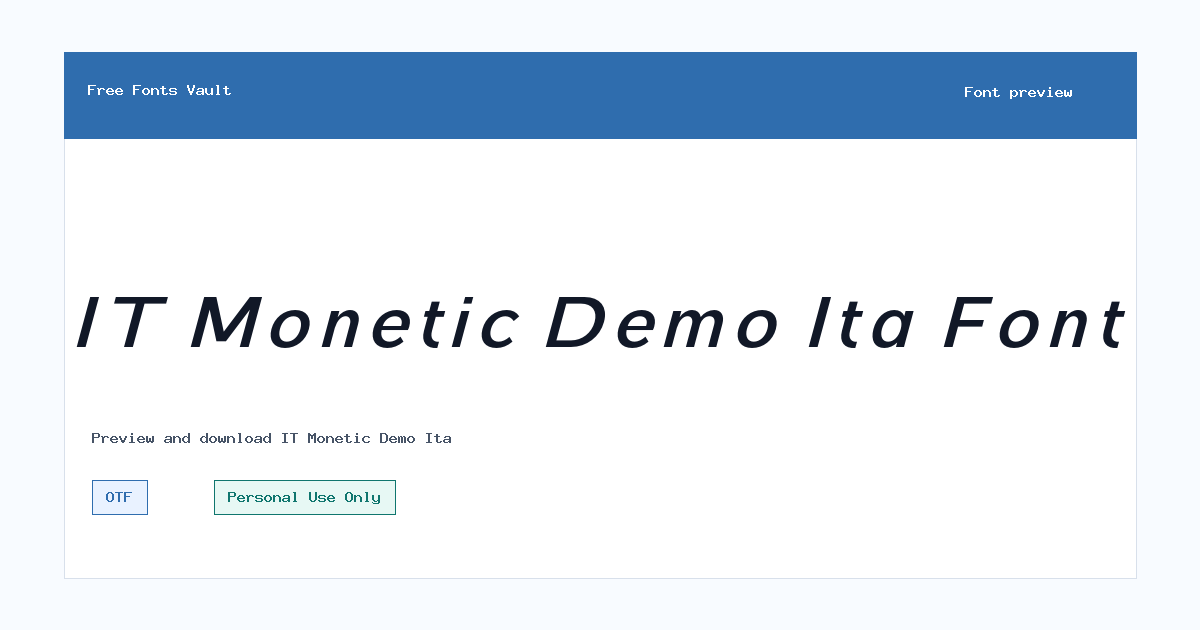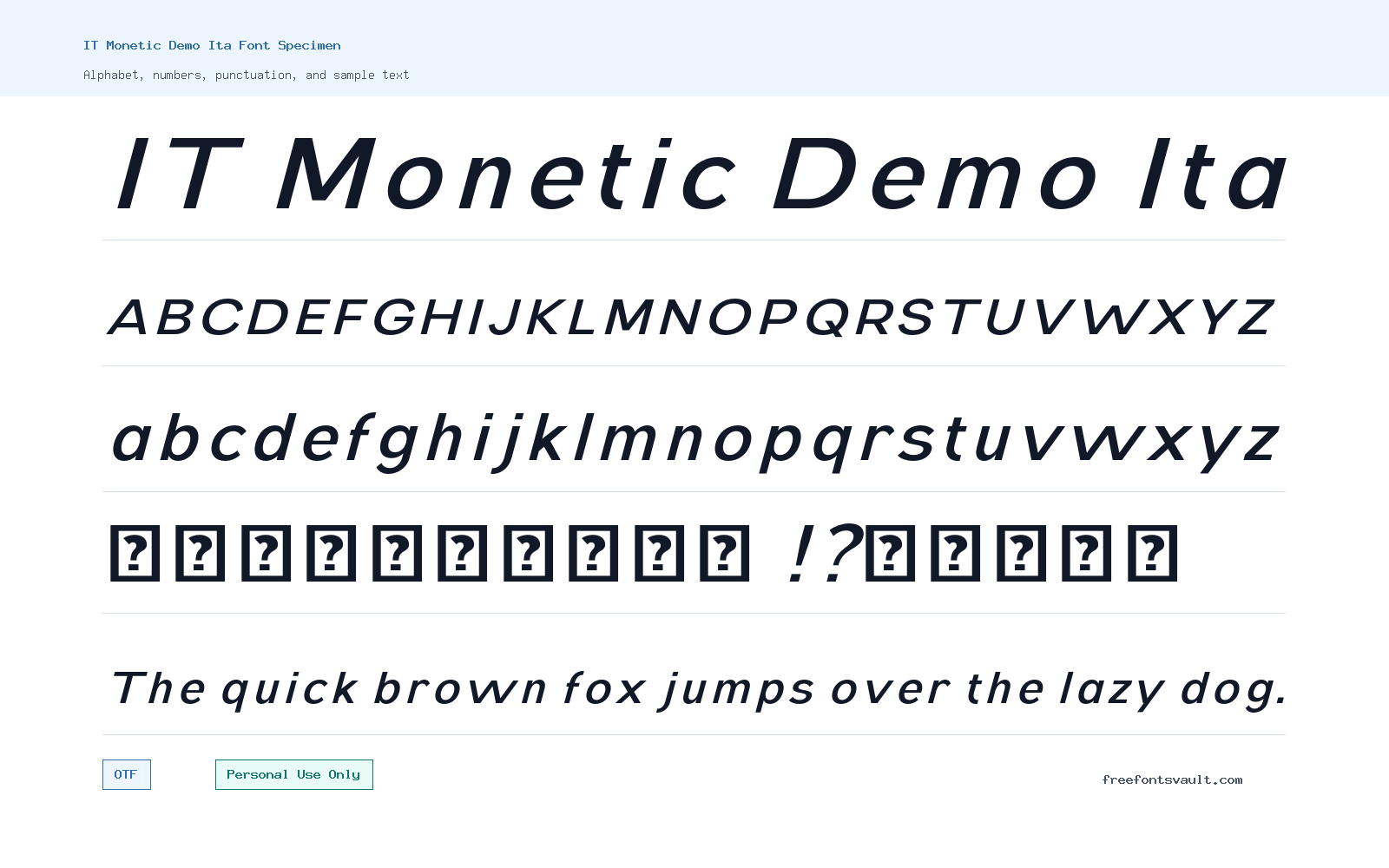
IT Monetic Demo Ita
- Designer Indotype
- Foundry Indotype Foundry
IT Monetic Demo Ita font.
IT Monetic Demo Ita is an italic sans serif demo font from the IT Monetic family. It is useful when you need a clean, slanted style for personal design drafts, title tests, poster mockups, and typography experiments.
About IT Monetic Demo Ita
IT Monetic Demo Ita has the practical feel of a modern sans serif with an italic angle that gives text more motion than a plain upright style. The available files cover a regular-weight italic and a bold italic, both in OTF format. That makes the font easier to test across different levels of emphasis: the lighter style can work for subheads, captions, and short notes, while the bold italic is better suited to stronger display text, name treatments, and attention-grabbing words.
The wider IT Monetic family is described by font distributors as a sans serif family built around clean geometric structure with some softer humanist touches. For this page, the safest way to judge the font is by using the preview tool with your own text. Try a brand name, a short quote, a poster headline, a button label, and a paragraph-length sample. Italic sans serifs can look sharp in short settings, but long passages may feel too slanted or too active, especially at smaller sizes.
For logo work, IT Monetic Demo Ita can be useful during early concepting when you want a clean italic direction without moving into script or handwritten lettering. Test it in all caps, title case, and lowercase, because italic letter shapes can change the rhythm of a wordmark. For posters and social graphics, keep the copy short and give the letters enough spacing. The bold italic style should be tested at large sizes where its weight and angle can be seen clearly.
Pairing IT Monetic Demo Ita is easiest when you let it act as the accent voice. Use a calm upright sans serif for body text, navigation, and longer explanations, then bring in IT Monetic Demo Ita for short emphasis. If the layout already has many angled shapes, heavy gradients, or decorative imagery, use the italic style sparingly so the design does not feel busy. For print layouts, test the bold italic in black-and-white as well as color, because strong italic headings can change balance when printed.
- Useful for short display text, concept layouts, and emphasis in personal projects
- Part of the IT Monetic Demo family, with related family members appearing on font download sources
- Personal poster headlines and quote graphics
- Logo concept sketches and wordmark direction tests
- Web and app mockups that need an italic sans serif accent
- Editorial pull quotes, short captions, and typographic studies
- Branding moodboards where the final license will be checked later
Preview the font with the exact words you plan to use. Italic sans serif fonts often work best in short text, so test headlines, button labels, logo names, and poster copy before downloading. Pair it with a simple upright sans serif for longer reading and keep the italic styles for contrast.
Is IT Monetic Demo Ita good for body text?
It is better for short text and emphasis. For long paragraphs, pair it with an upright, readable sans serif and keep IT Monetic Demo Ita for headings, captions, or highlights.